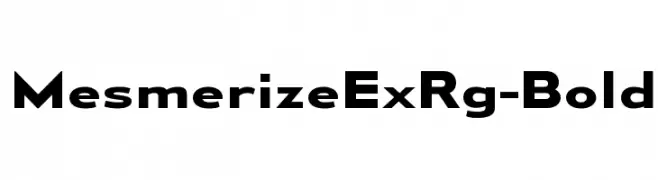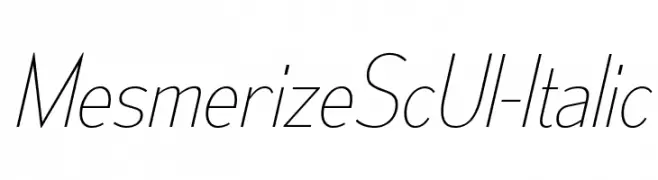
A modern, bold sans-serif font with a geometric style and excellent readability.
A bold, modern font with clean, geometric lines and excellent readability.
A modern, italic font with sleek, dynamic lines and balanced proportions.
A bold, italicized font with strong, dynamic strokes and a confident presence.
A modern, italic font with sleek, elongated characters and consistent stroke width.
A sleek, italicized font with thin strokes and a modern aesthetic.
Bold, italic, and dynamic with a modern, assertive style.
A modern sans-serif font with a clean, streamlined design and balanced character spacing.
A bold, modern sans-serif font with clean lines and geometric shapes.
A modern, geometric sans-serif font with clean lines and balanced spacing.